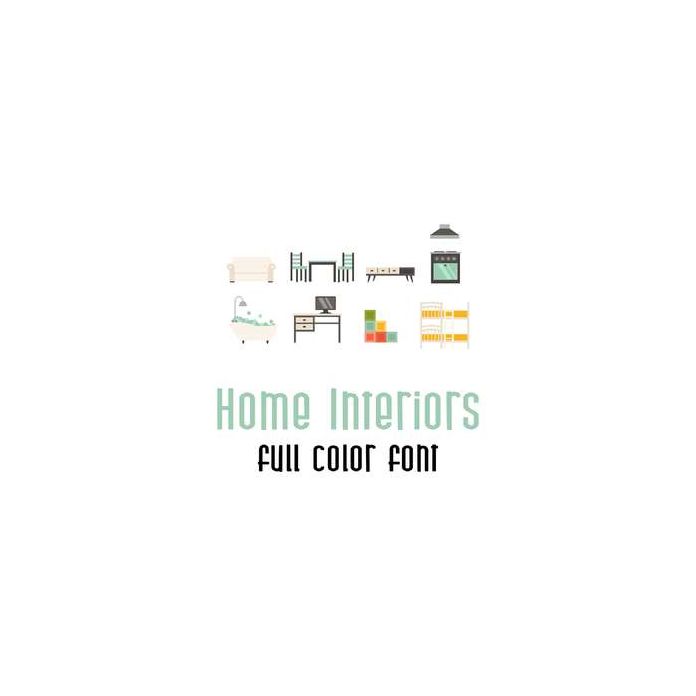
A full-color font stores svg data inside an Open Type font file. This font will look black if not used in a program like Silhouette Studio which is compatible. Images can be pulled apart and cut with your cutting machine.
This adorable full color doodlebat font features fun modern home interiors and furniture. Perfect for cards, crafts, gifts, decor, scrap book pages, planner stickers and more!